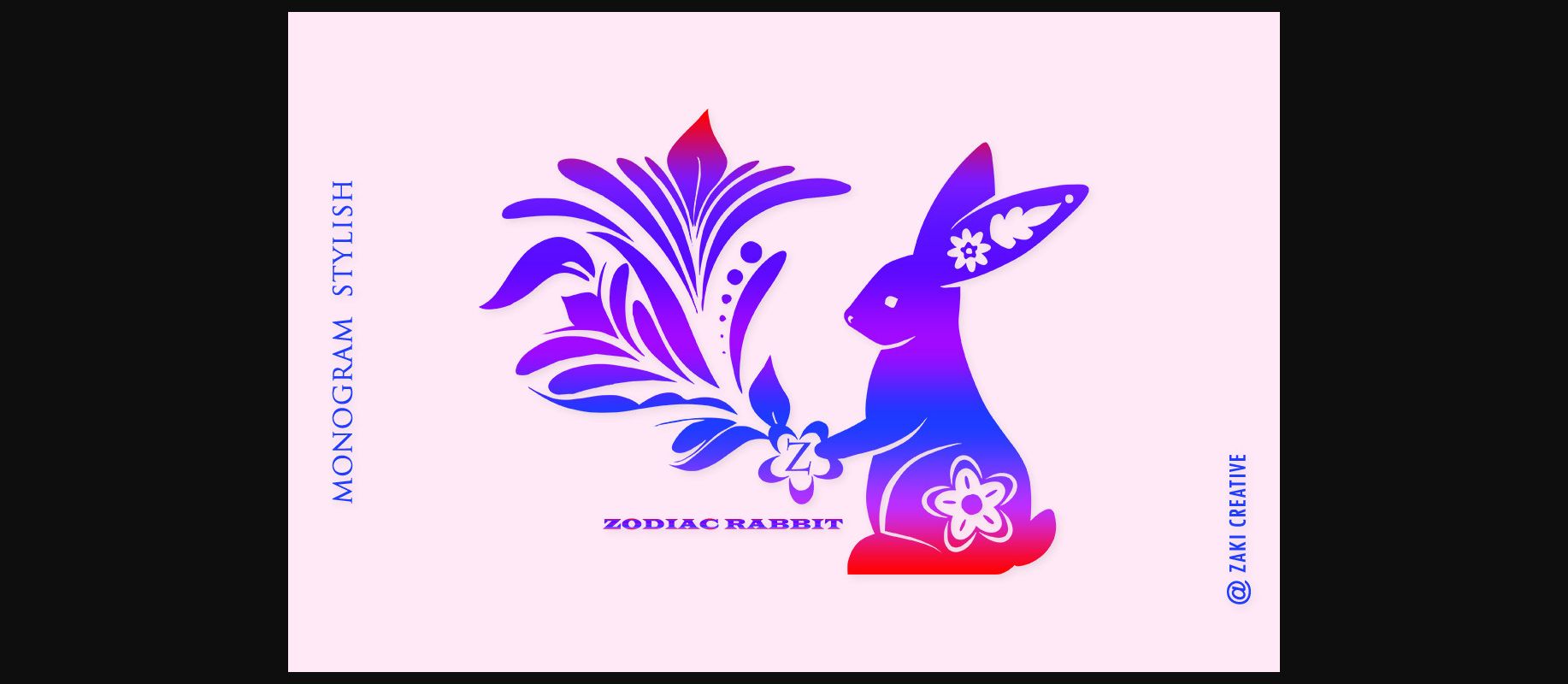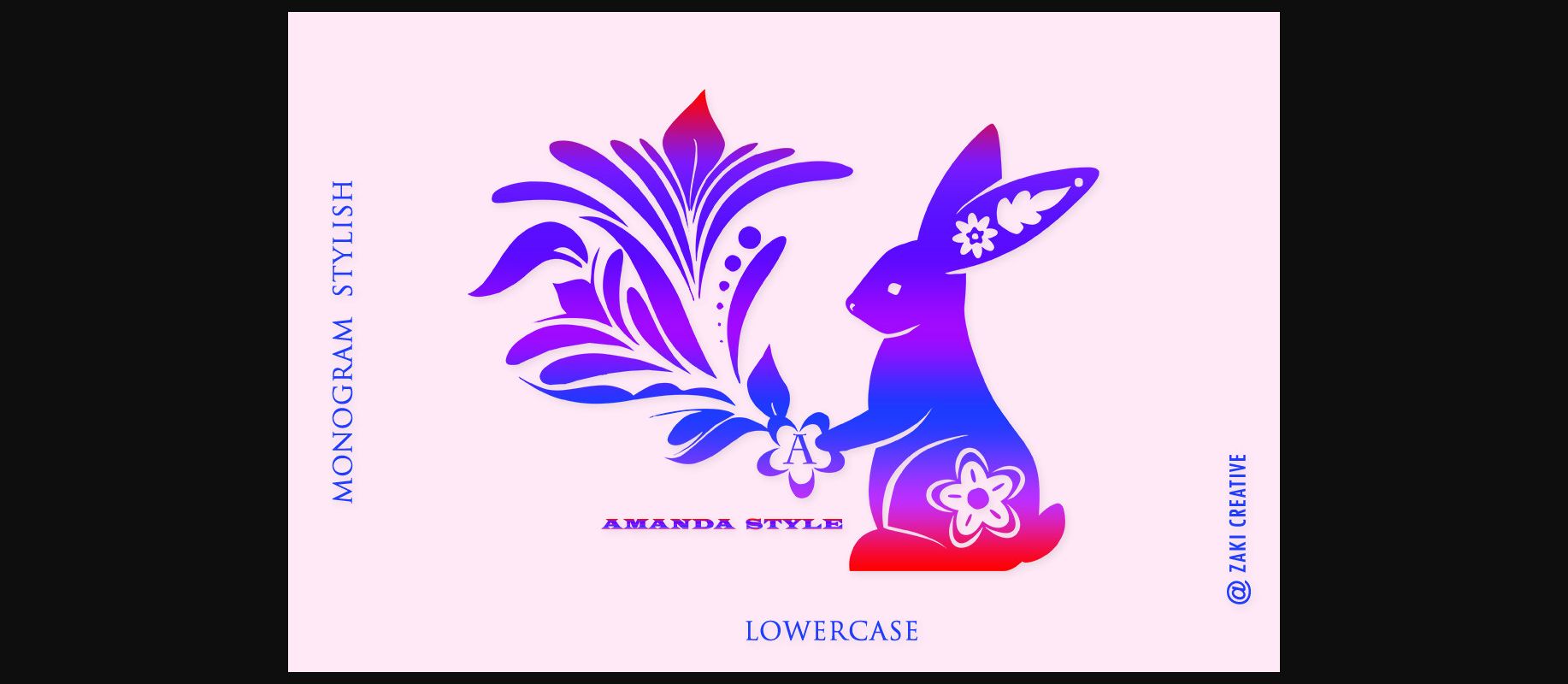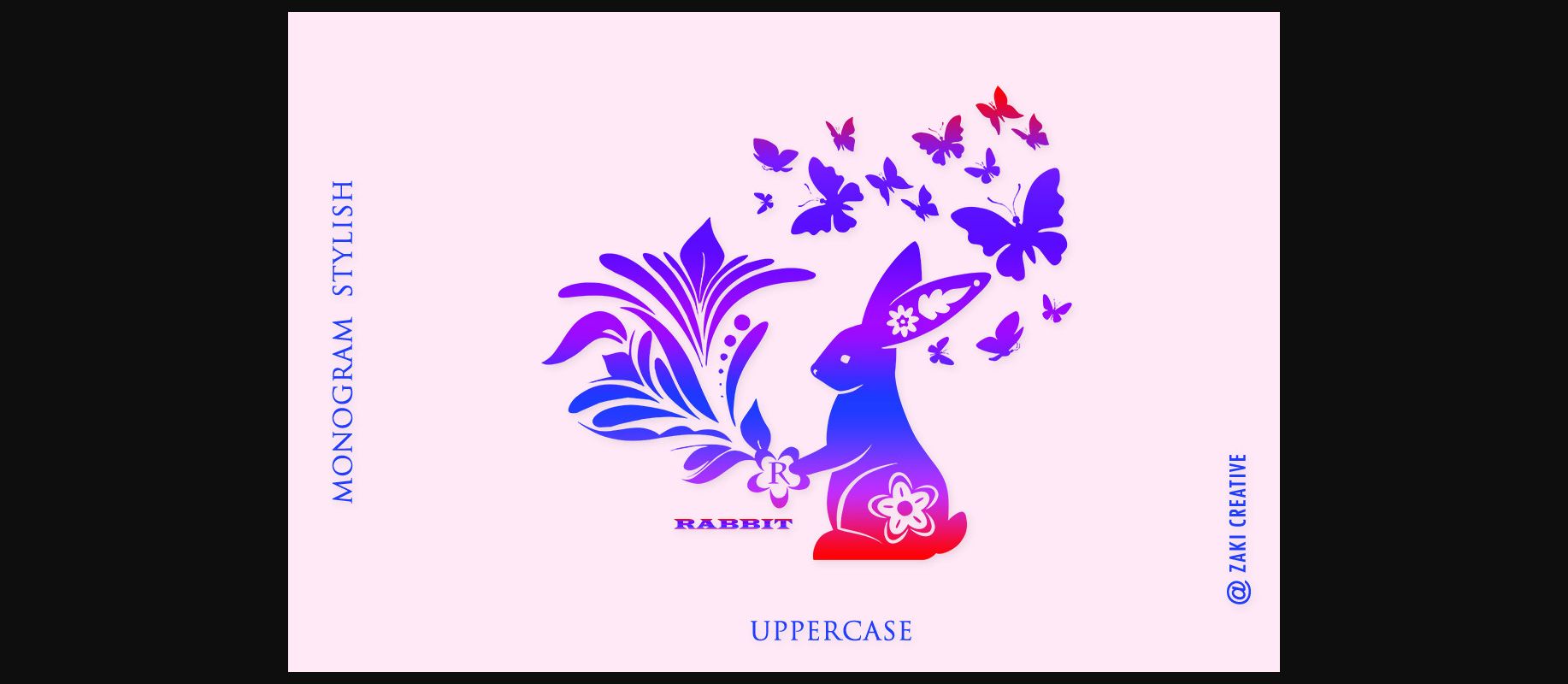
About Zodiac Rabbit Monogram Font
Zodiac Rabbit Monogram is a dainty and unique decorative font. Add this romantic and lovely-looking font to each of your love letters, wedding invitations, or favorite design ideas, and you will be astounded by the outcome.